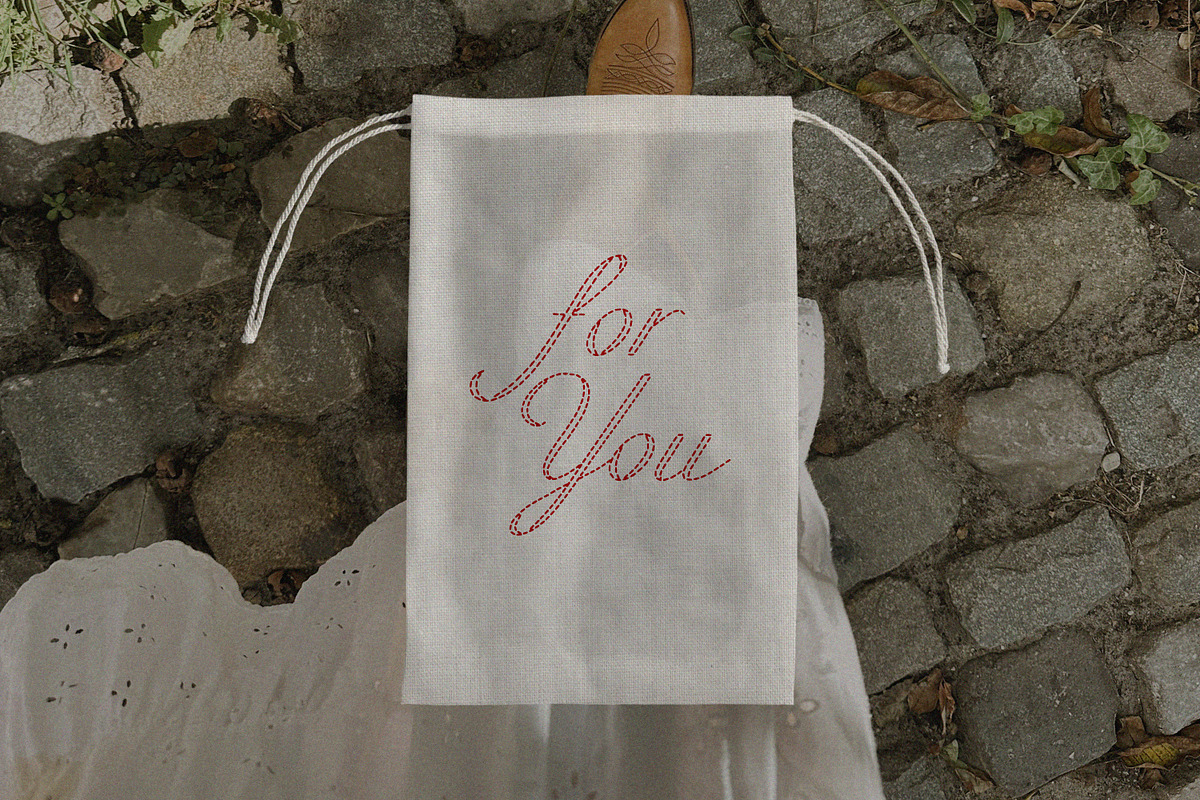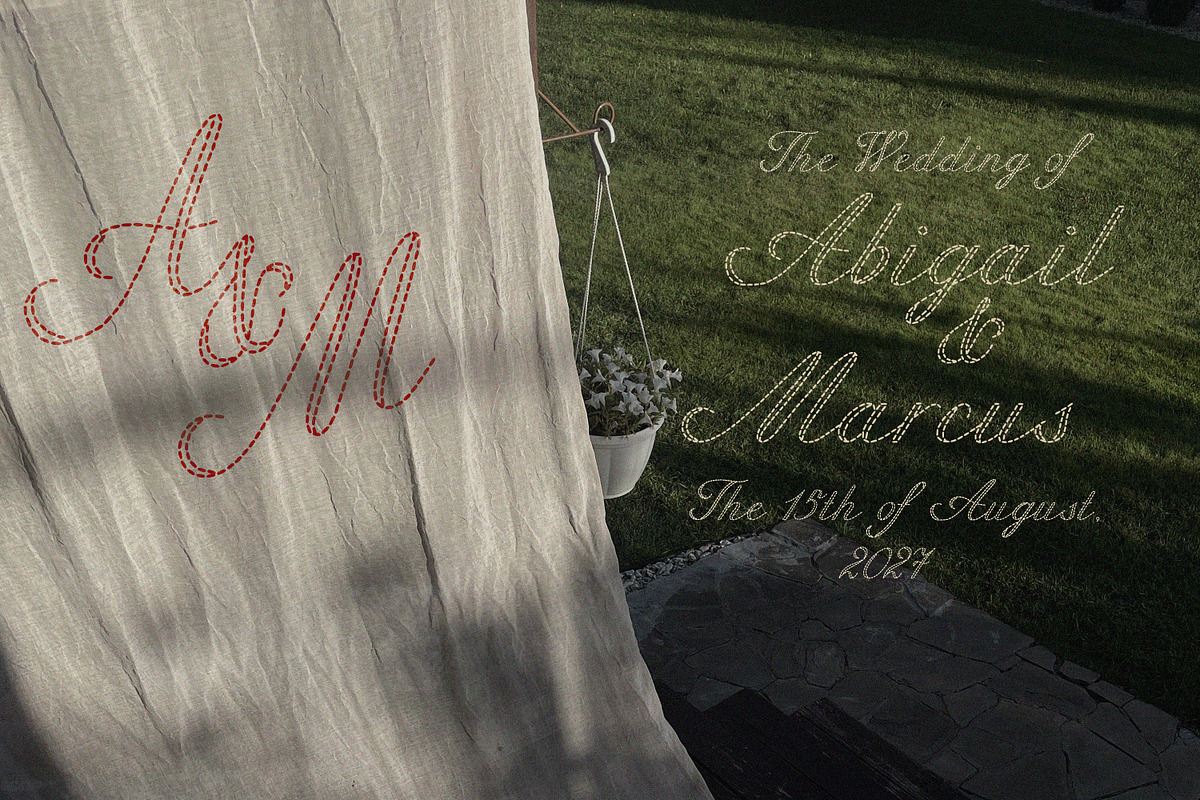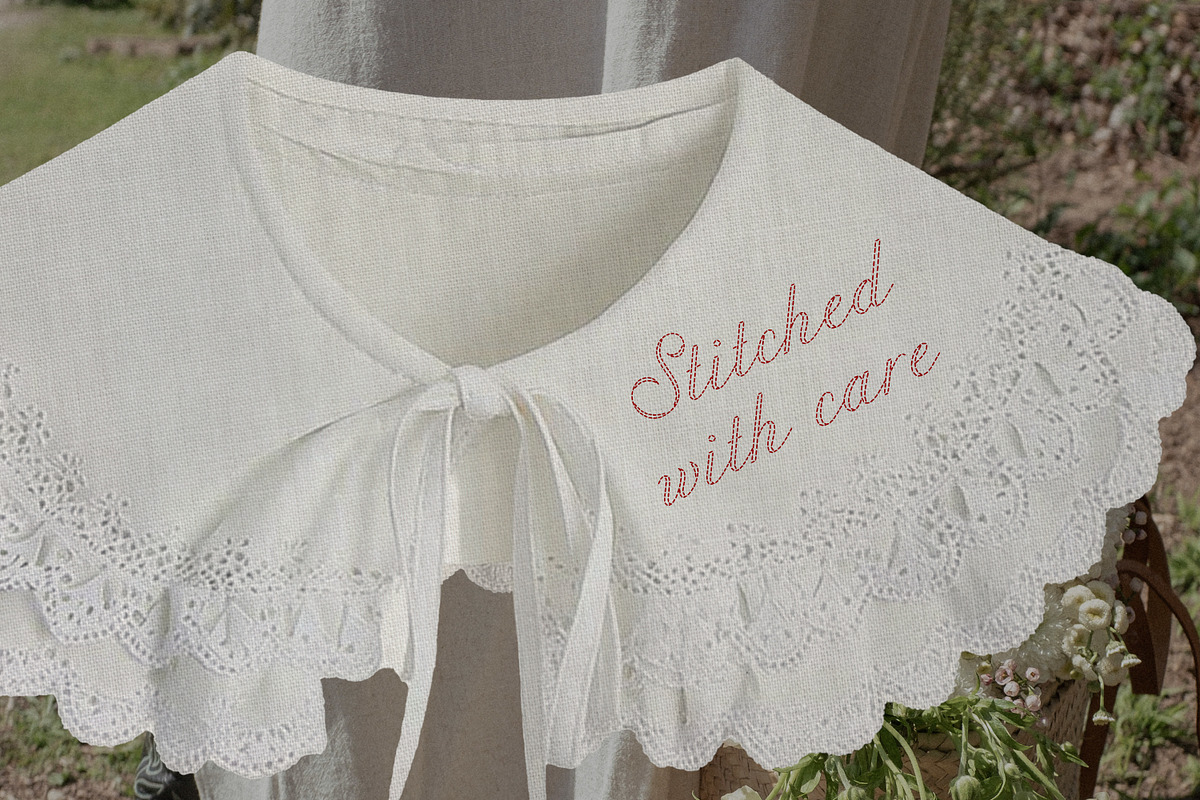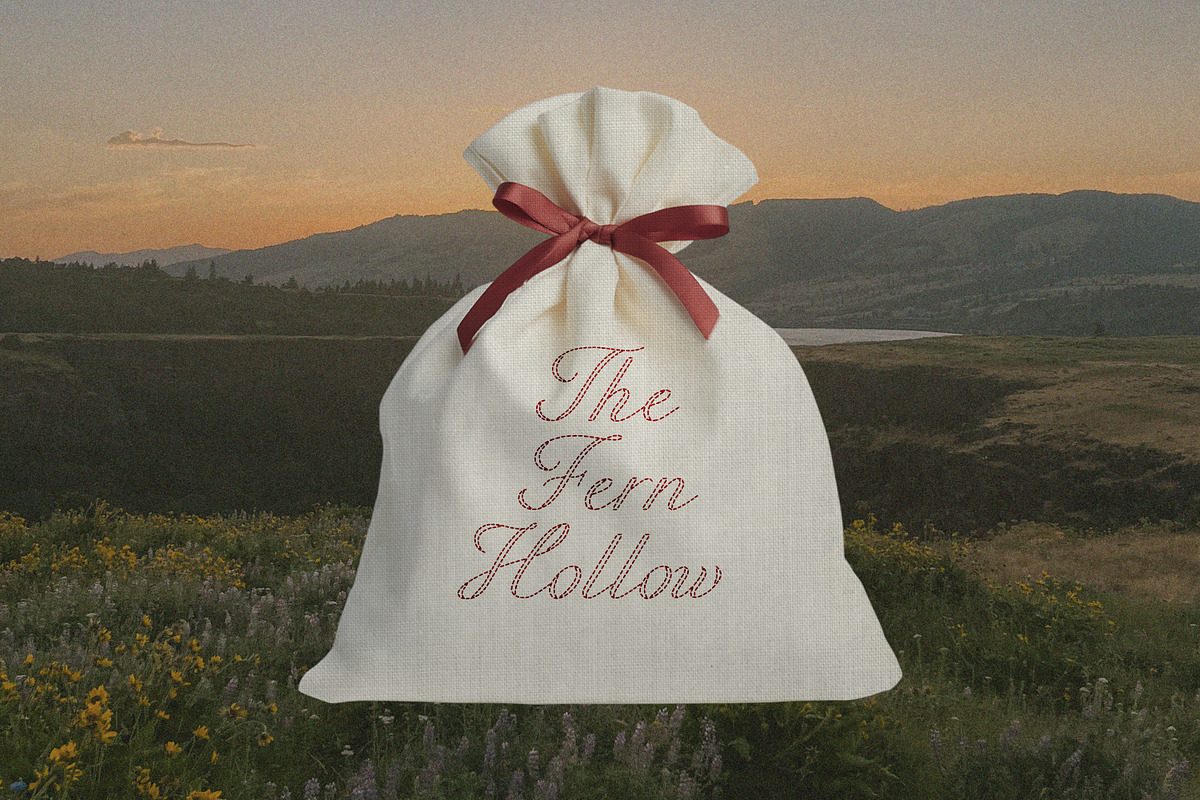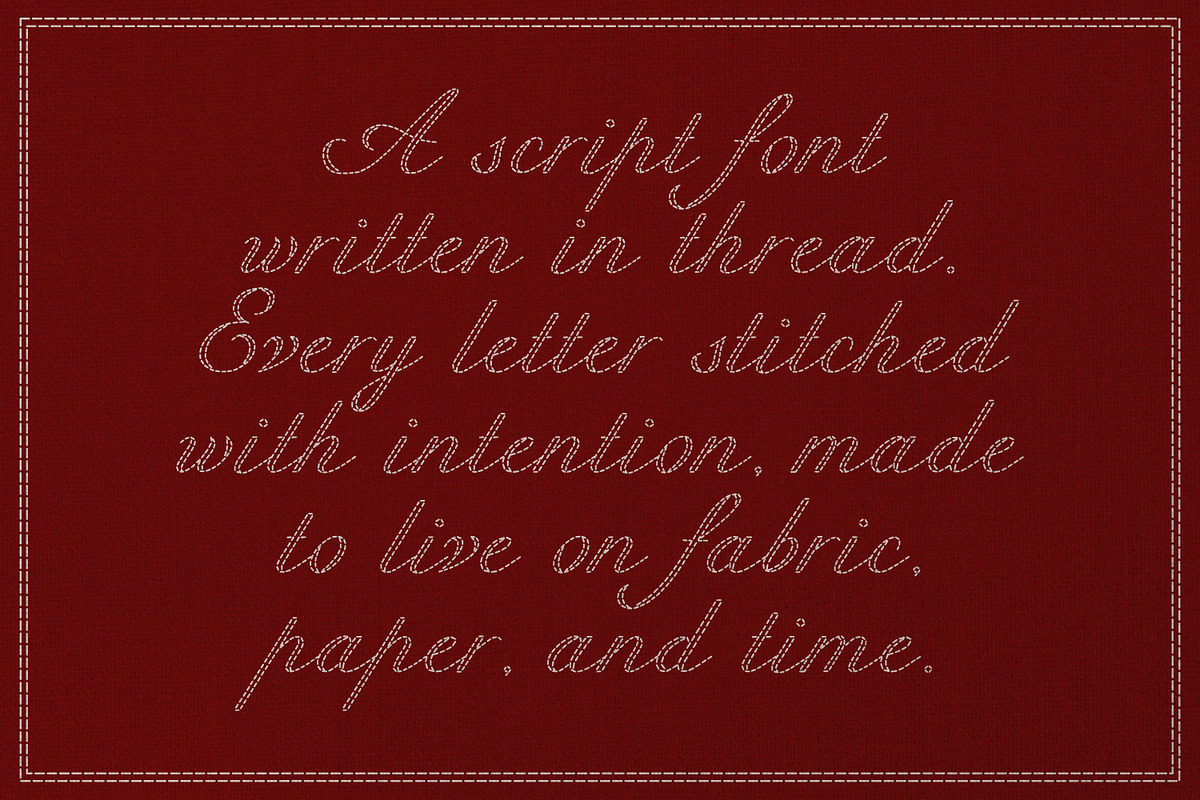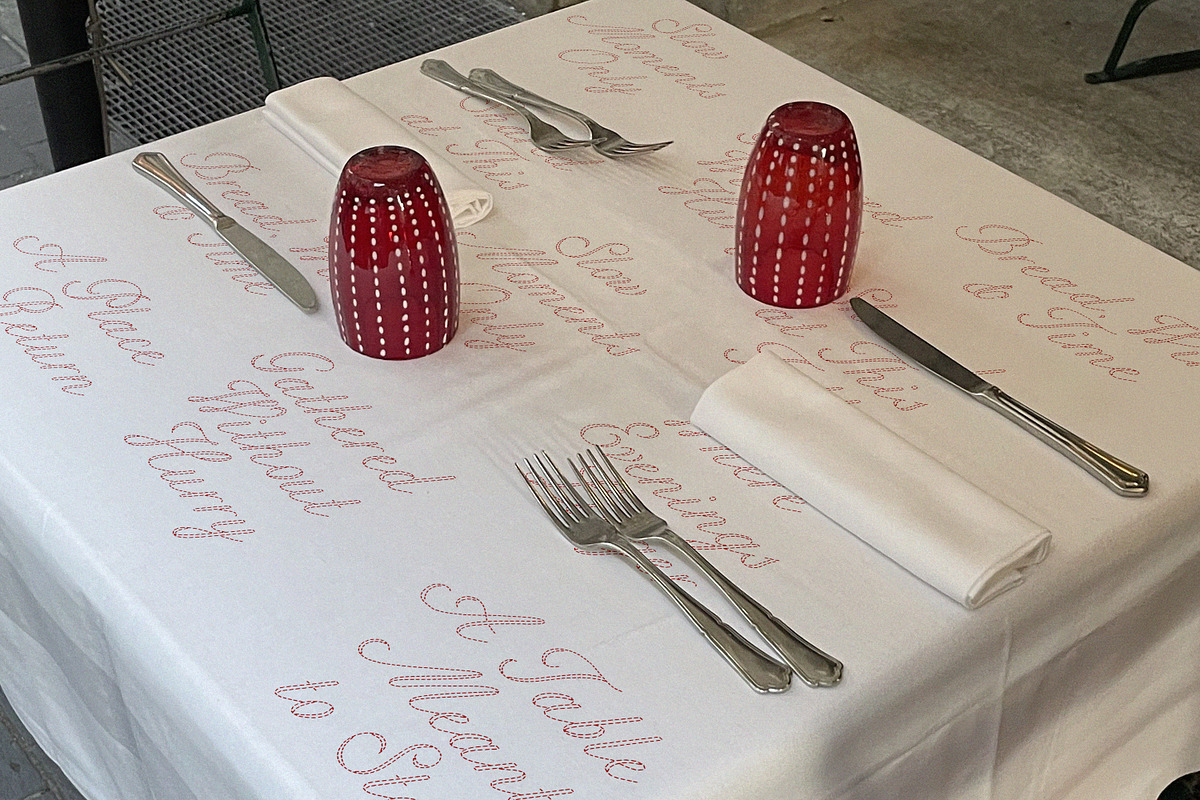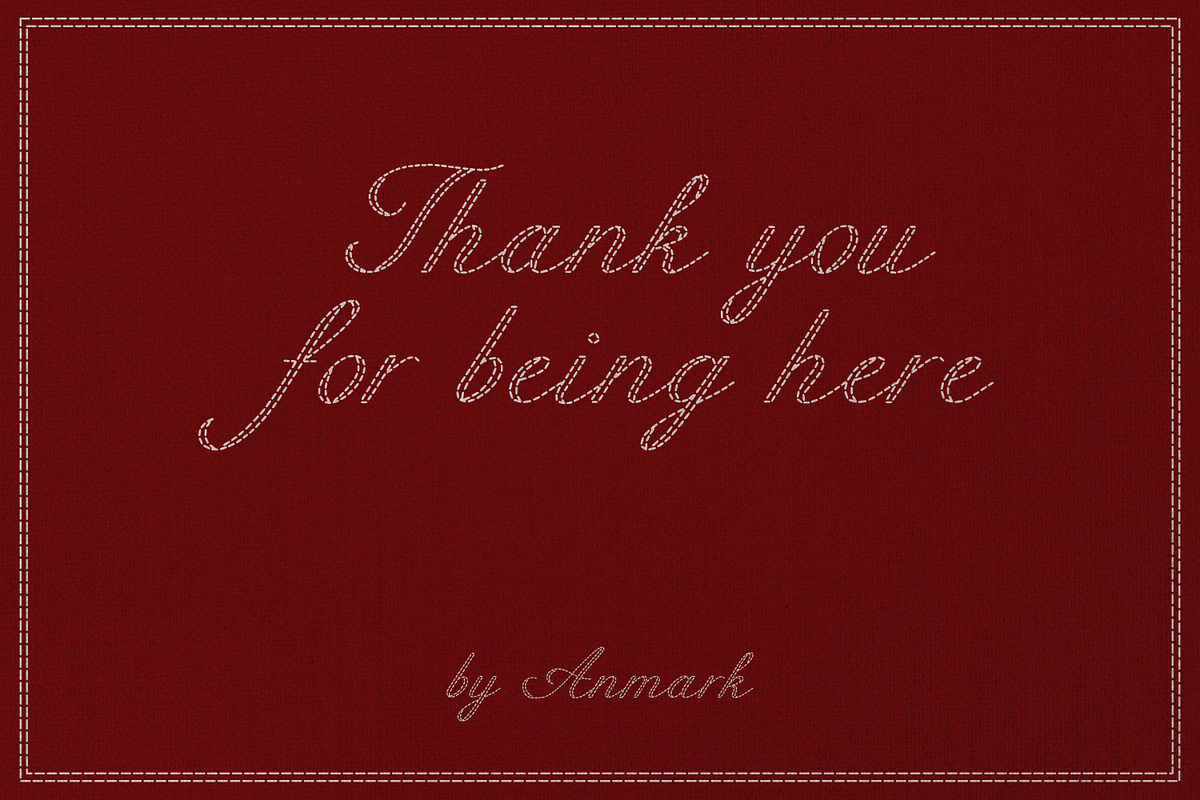
Refined Stitch is an elegant vintage-inspired font with a hand-crafted texture, influenced by cozy cottagecore aesthetics and delicate stitch details. Perfect for creating wedding invitations, monograms, logos, and branding, as well as styling social media content, posters, packaging, and art projects. Its unique stitch-inspired accents add a charming vintage atelier feel, making your designs refined and memorable.
Use Refined Stitch for:
Wedding stationery and invitations
Monograms and personalized logos
Packaging and product labels
Social media posts and stories
Posters, prints, and other printed materials
Craft and hand-made projects with a cozy cottagecore vibe
With Refined Stitch, your designs will shine with warm, vintage elegance, turning every letter into a little work of art.